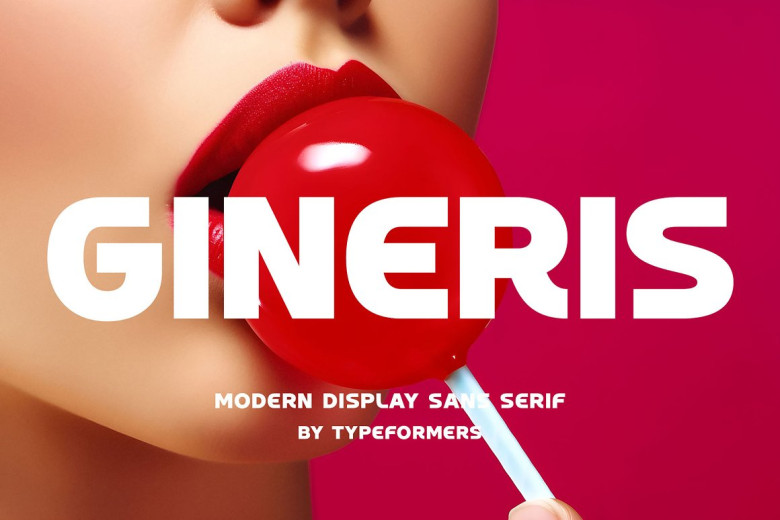
Gineris Font
Gineris Font – Modern Display Sans Serif. Gineris font is modern and simple, perfect for display headings, logos and branding applications.
Gineris Modern Display Sans Serif Font